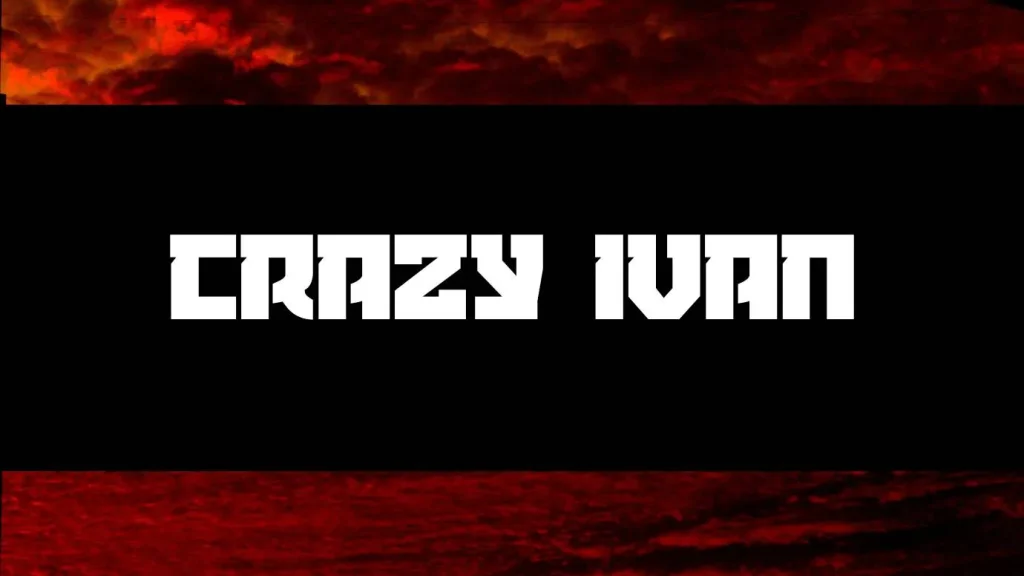
Users must try Crazy Ivan Font design for creating catchy headers and appealing captions. For all those seeking a beautiful and cheerful atmosphere, it is ideal. There are many uses for such an adaptable font type design.
It also includes standard capitalization, variations, fashionable substitutes, and numbers. The font type may be used to create various CSS designs. An online font generator tool can also be used to create this type of design.
What is the best way to use Crazy Ivan typeface on my website?
Yes, by using the Crazy Ivan typeface you can make your website design more beautiful.